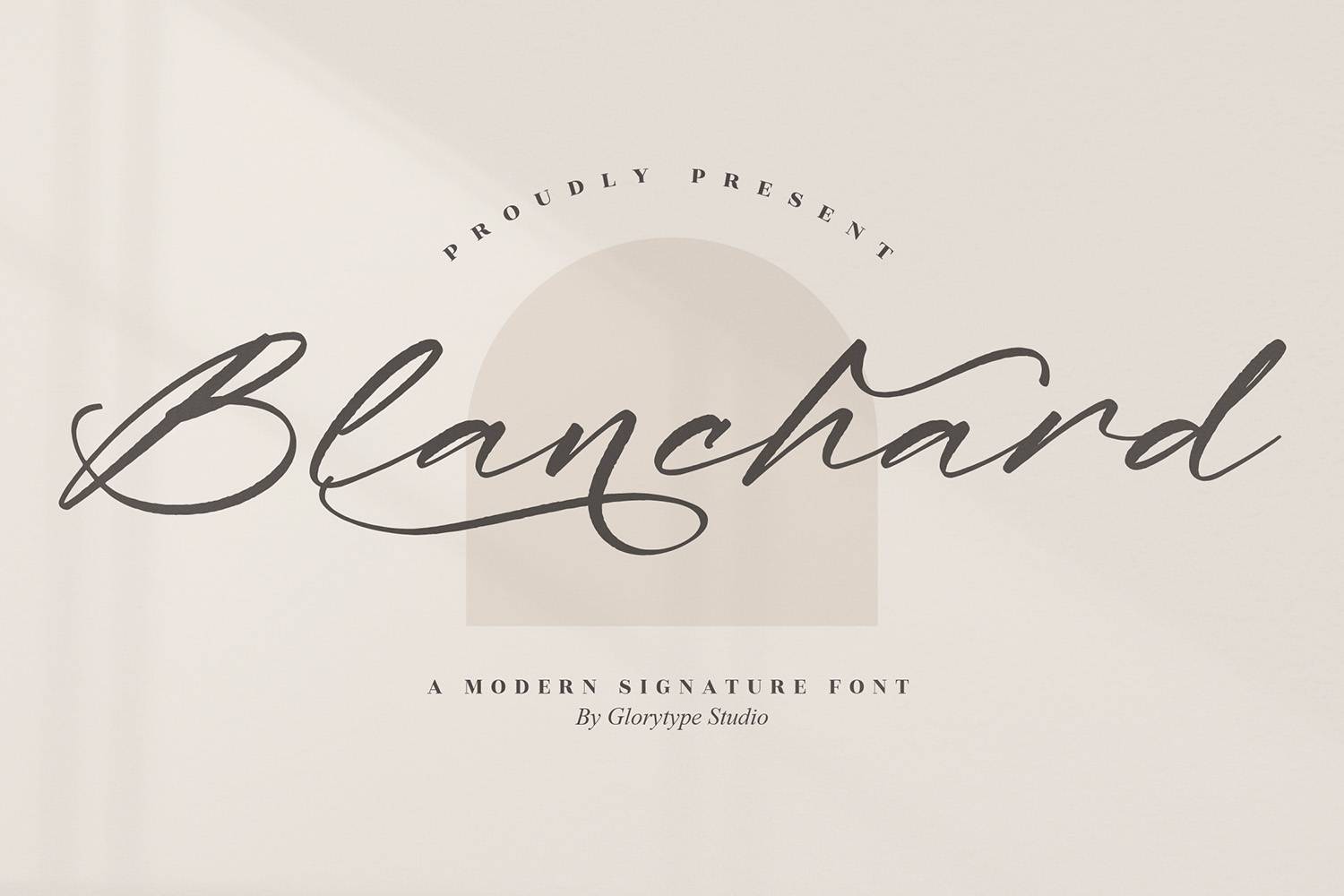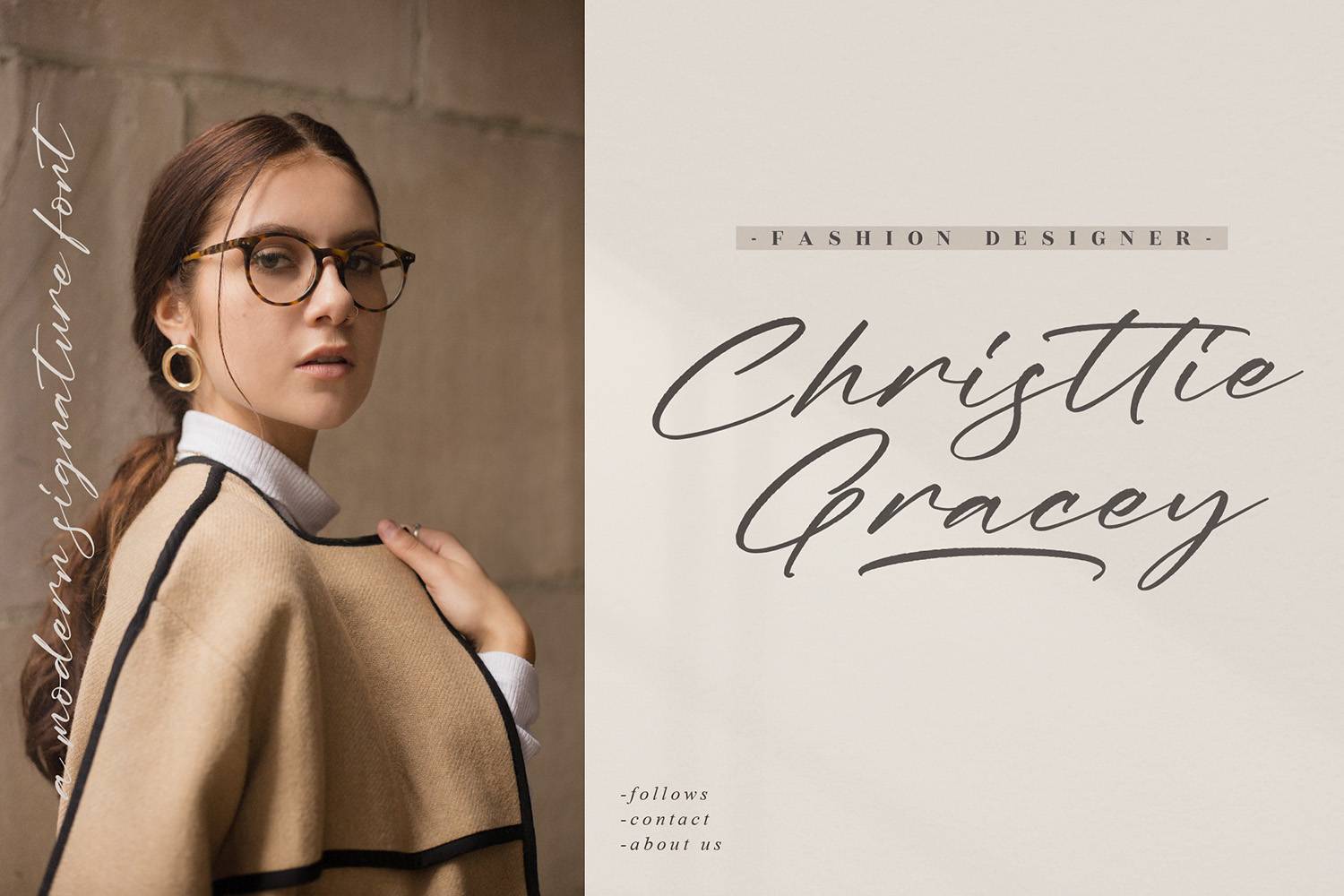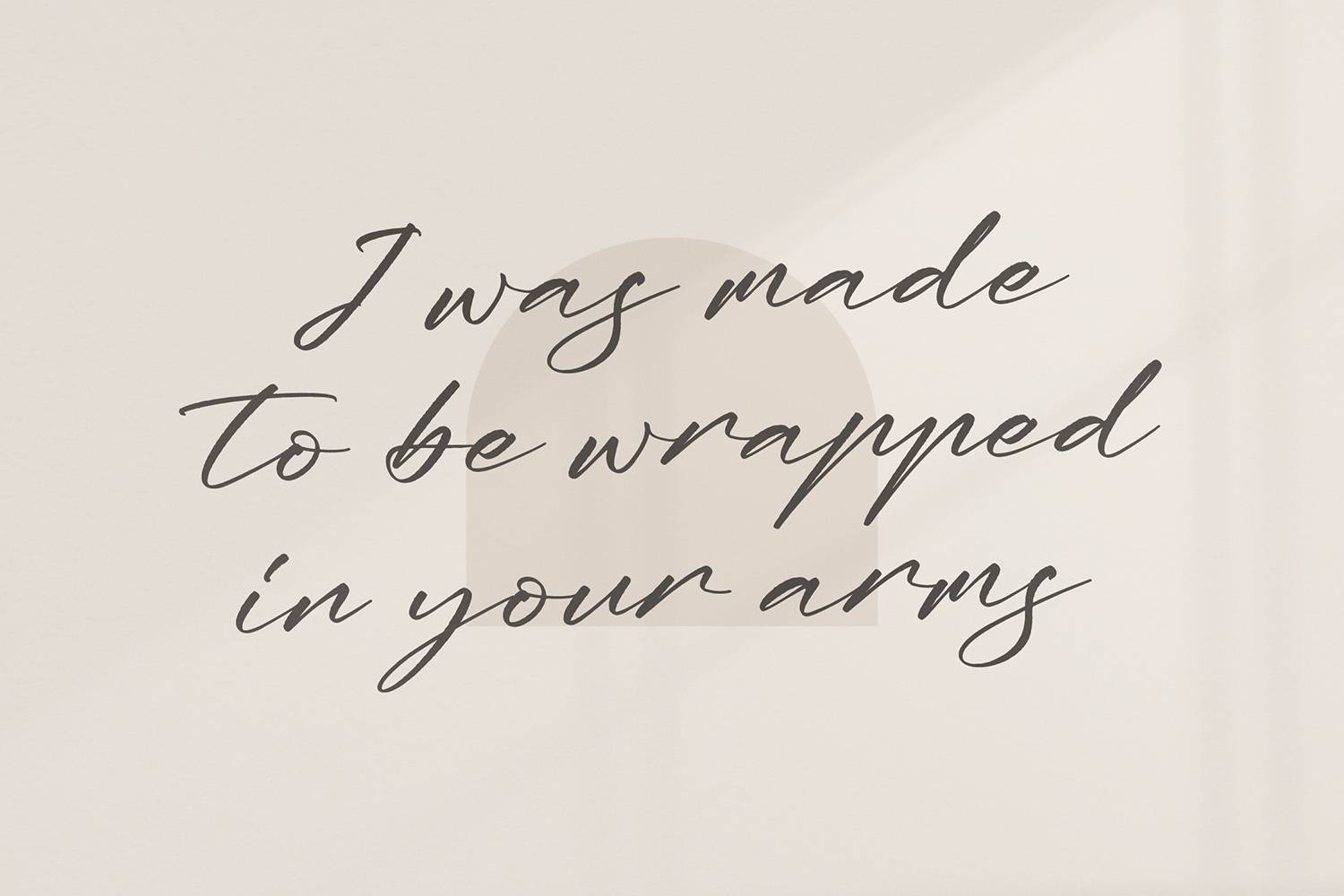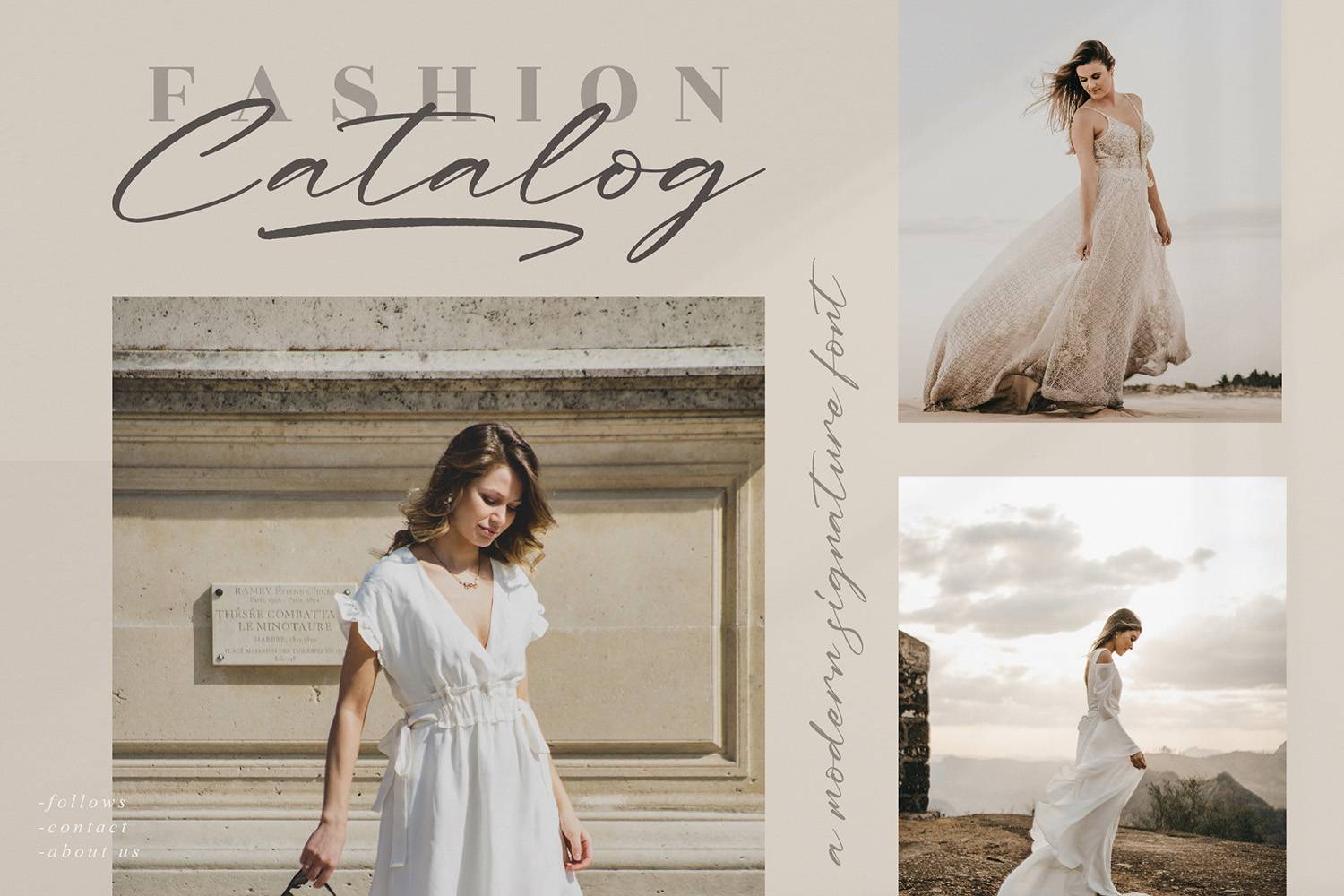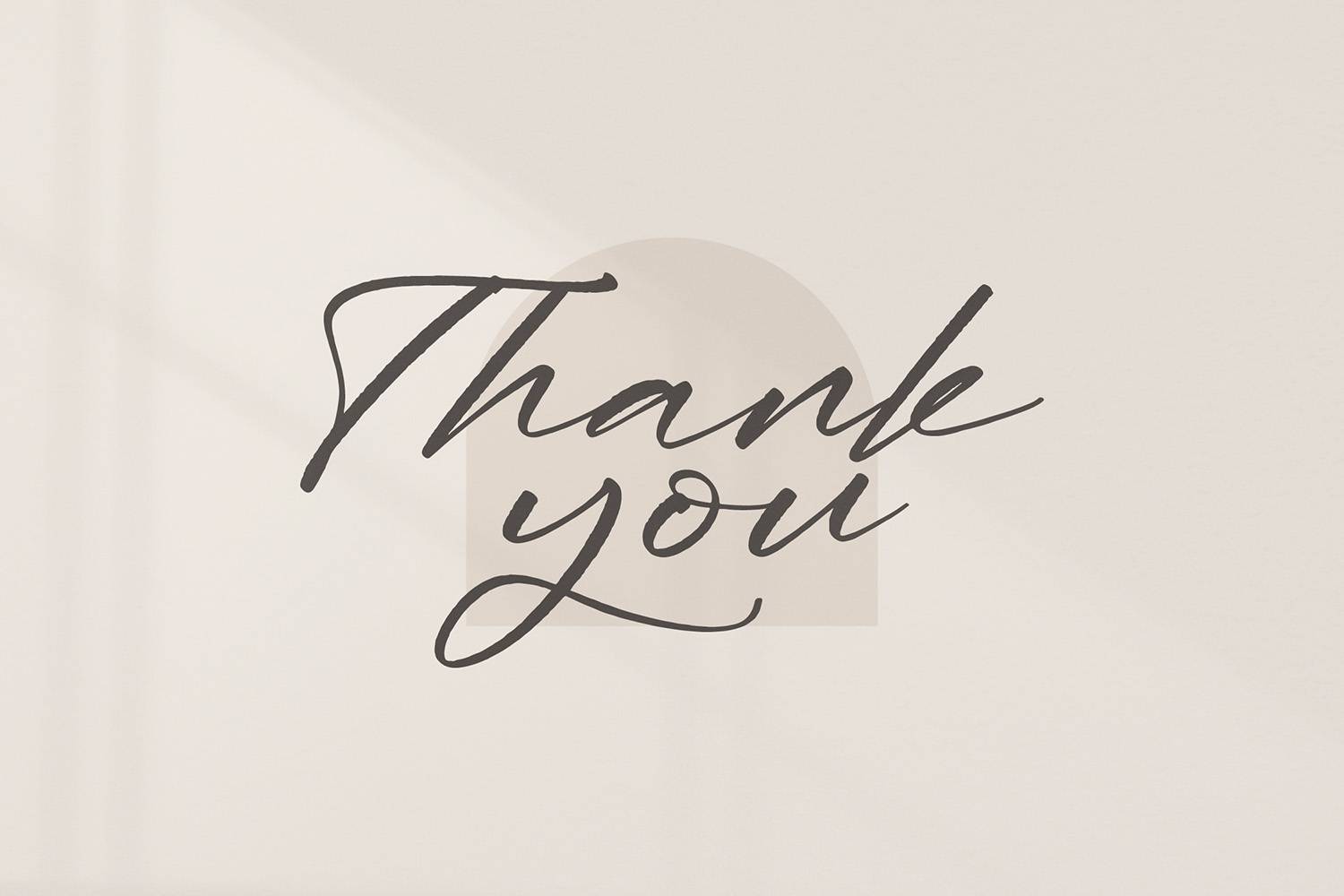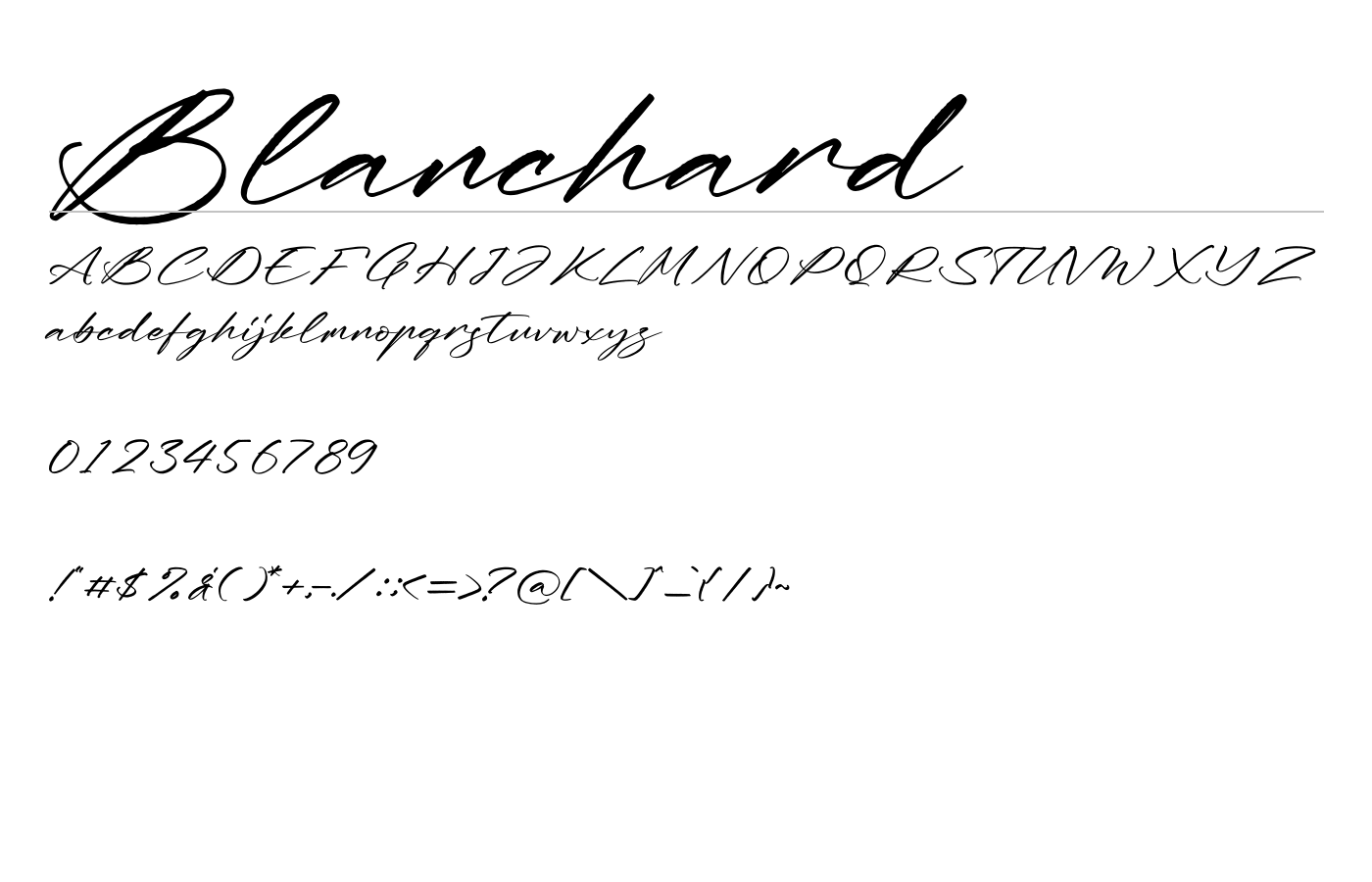
Blanchard is a delicate script font with a natural, handwritten feel characterized by its thin, flowing strokes and elegant curves. It showcases a light weight and narrow width, lending it a graceful and refined personality, perfect for adding a touch of sophistication to invitations, branding, and editorial designs. This font works best in contexts where a stylish, personal, and artistic touch is desired, making it ideal for luxury products, wedding materials, and creative projects that value elegance over boldness.
Blanchard Font
About Blanchard Font